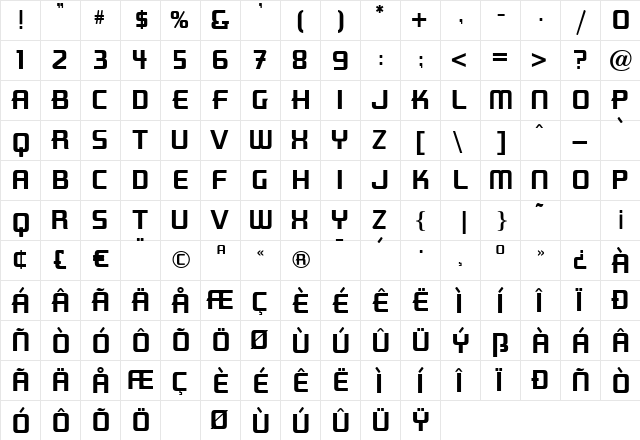
WalcottGothic Sunset
Design Context for WalcottGothic Typeface
WalcottGothic takes a clean, functional approach — its unadorned letterforms prioritise legibility and work reliably across screen and print environments.
Font Pairing: Works well alongside a characterful serif or display font that can carry the expressive load while WalcottGothic handles the functional copy.
Pro Tip: Pair WalcottGothic with a display or serif font for headlines — its neutral character makes it an excellent supporting player in complex typographic systems.